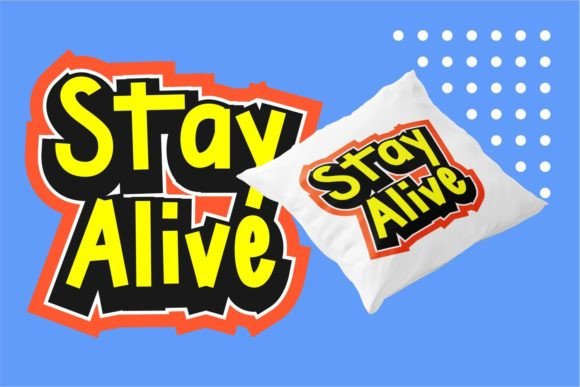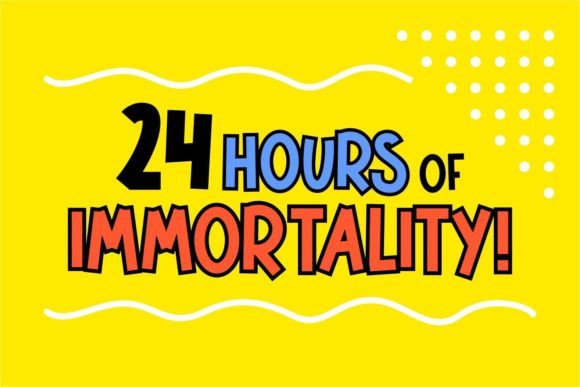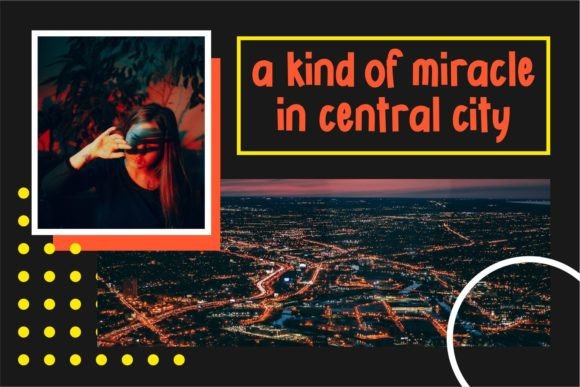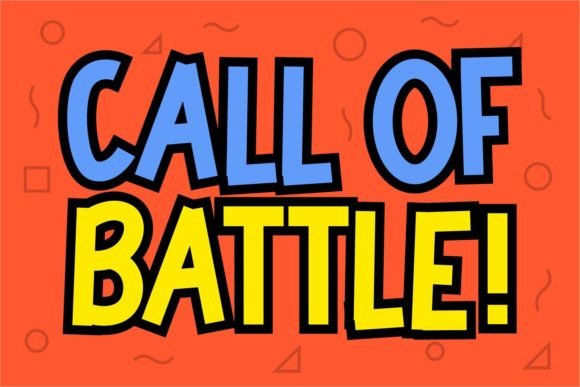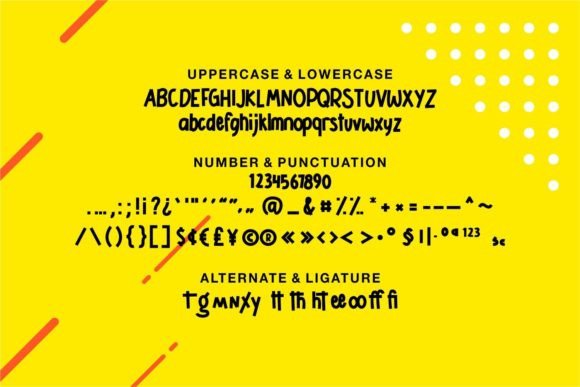
The Gagax Font: A Playful Twist for Your Designs
I’ll never forget the time I was working on a project for a quirky client who wanted a font that would make their brand stand out. I spent hours scouring the internet for the perfect display font, but nothing seemed quite right. That was until I stumbled upon the Gagax font. With its unique, hand-drawn letterforms and playful style, it was love at first sight! In this article, I’ll share my experience with the Gagax font, its features, and how to make the most of it in your designs.
An Honest Review of Gagax Font
- ✨ Unique and playful letterforms that add personality to any design
- ✅ Easy to read and understand, even in large blocks of text
- 🎉 Quirky and eccentric style that’s perfect for making a bold statement
- 💻 Highly versatile and can be used for a wide range of design projects
While the Gagax font is amazing, there are a few things to keep in mind:
- 🤔 Some letters may not be suitable for body text due to their playful nature
- ⚠️ Limited use of uppercase letters, as they can appear too bold
The Designer Inspiration Behind Gagax Font
The Gagax font was designed with the goal of creating a playful and unique display font that would add personality to any design. Inspired by the world of street art and graffiti, the designer aimed to create a font that would stand out in a crowd. With its quirky and eccentric style, the Gagax font is perfect for designers who want to make a bold statement.
Q: What type of projects is the Gagax font best suited for?
A: The Gagax font is perfect for projects that require a playful and unique display font, such as titles, headings, and logos.
Q: Is the Gagax font suitable for body text?
A: While the Gagax font is easy to read, it may not be the best choice for large blocks of body text due to its playful nature.